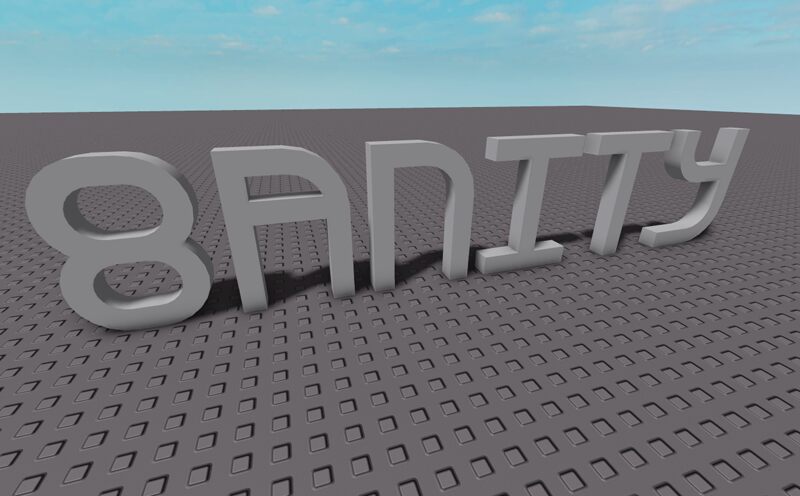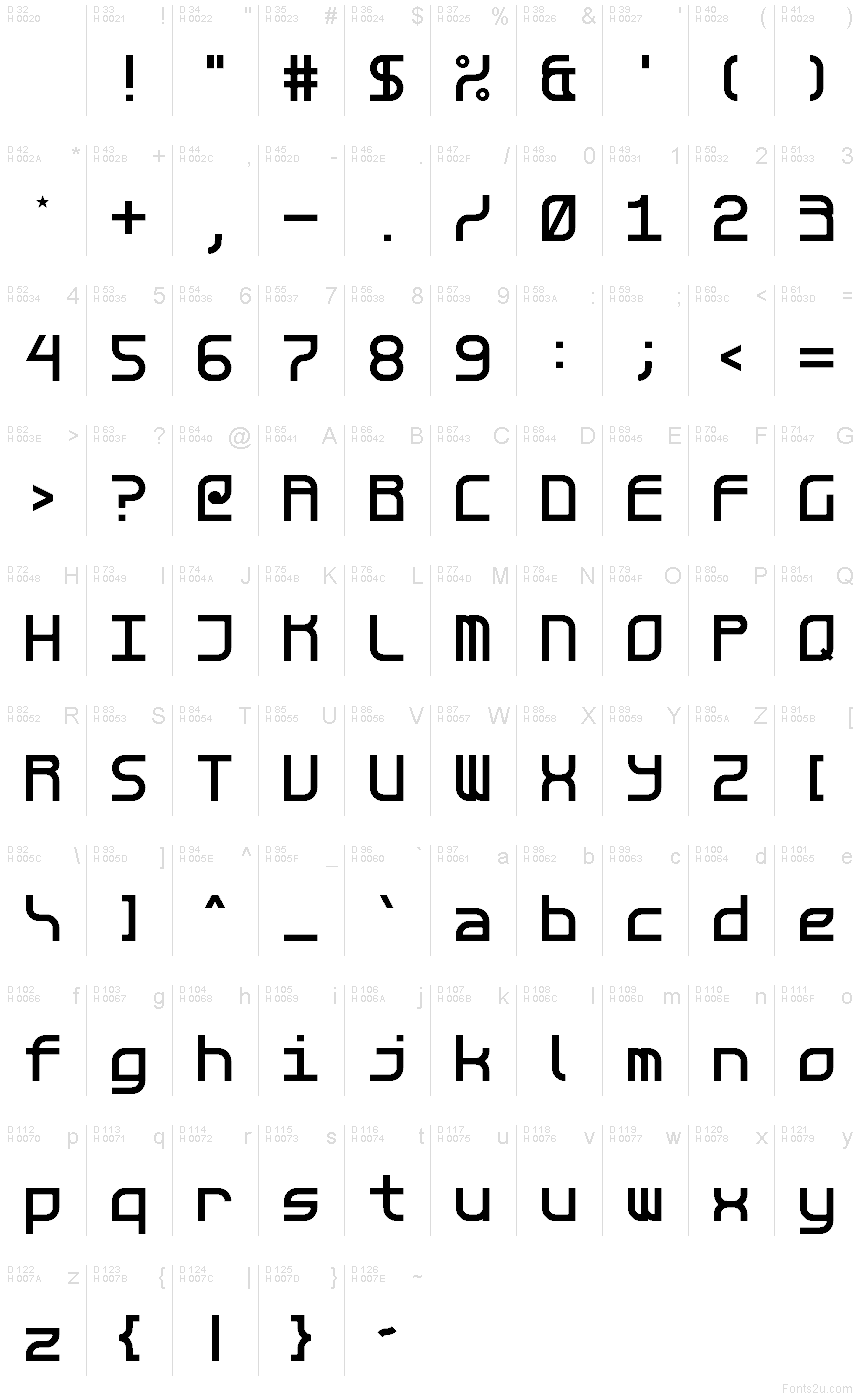
8anity Regular
8anity font by Logan Roman is a free techno display font inspired by Roblox user ‘8anity’. Featuring expanded letter structures of various heights, the font beautifully achieves visual balance and elegance in its unique glyphs. Additionally, the typeface seamlessly combines modern and geometric design features for a futuristic overall feel.